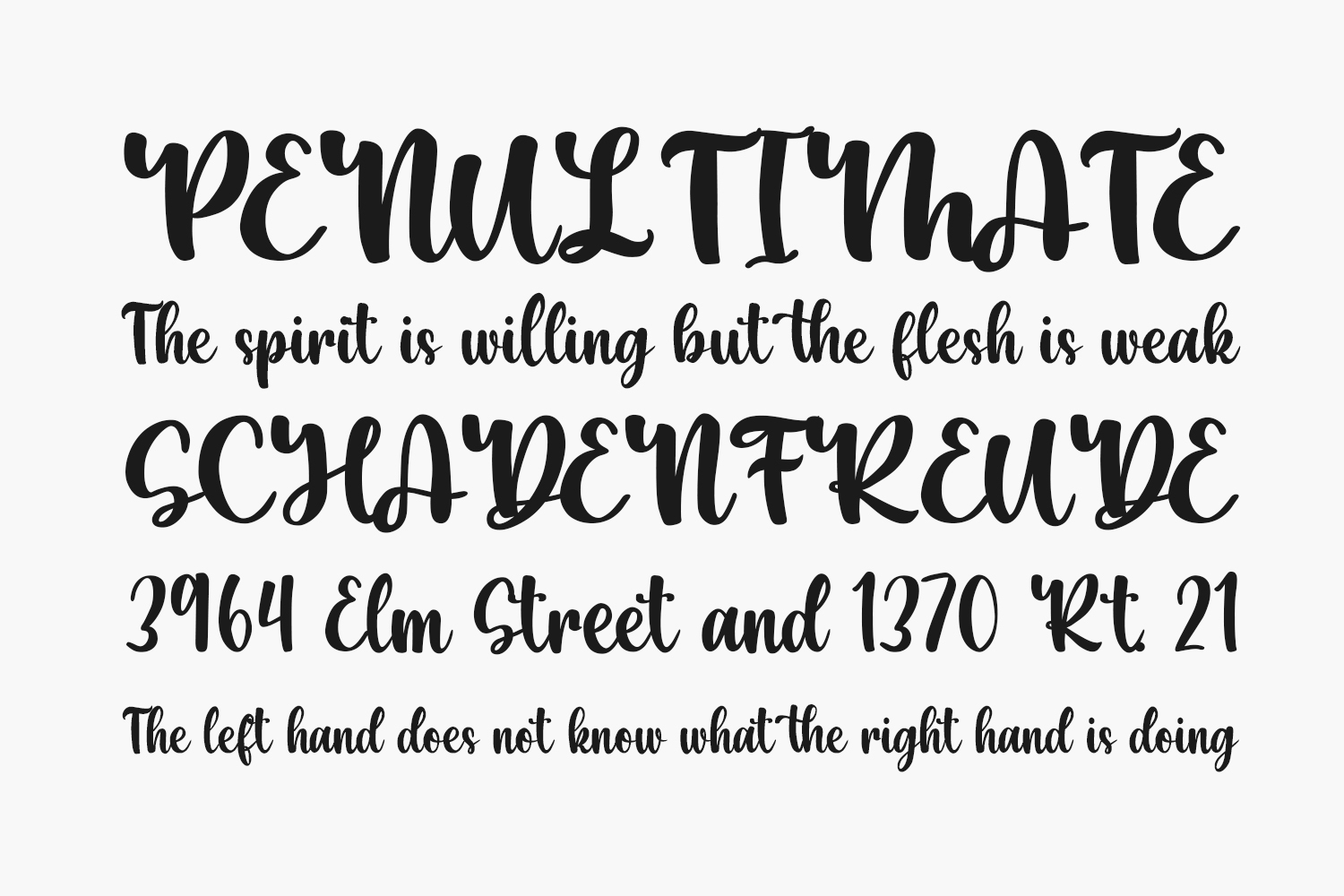
Honeywell Free Font is a beautiful light handwritten font with a unique feel and a stunning impact. It will add a luxury spark to any design project that you wish to create. Honeywell Free Font was designed by Ikrar Bey Khubaib and is free for personal use only. Please purchase the full version for commercial use.
Designed by Ikrar Bey Khubaib